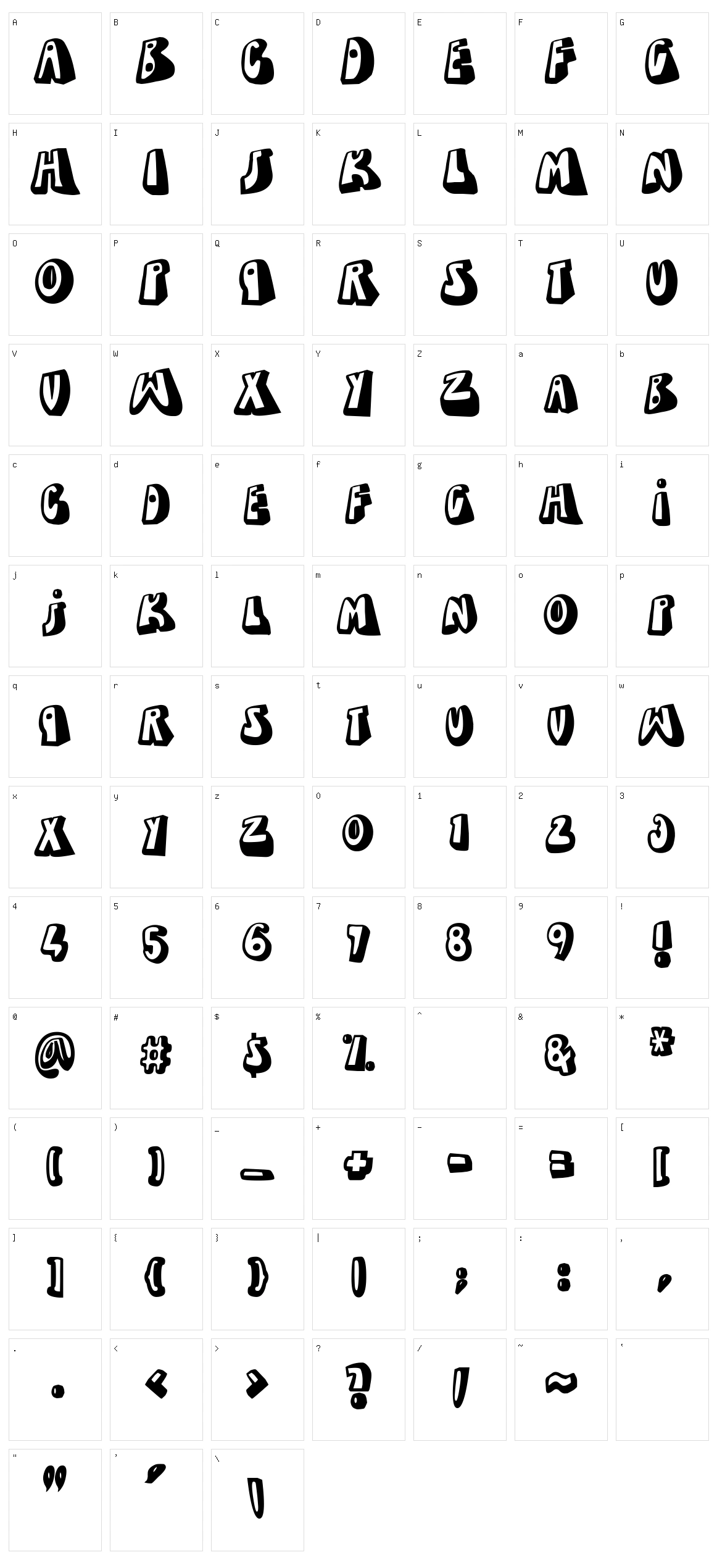
The free font Dead Wallace is carefully designed by paintblack, showcasing a thoughtful balance of creativity and usability and falls under the Cartoon font style. When you download the ZIP file, it contains only 91.78 KB of font files, making it lightweight and quick to download. Please review the license details below to understand permitted usage and distribution rights. If license information is not available, we recommend using this font for personal projects only or contacting the author directly for commercial usage permissions.